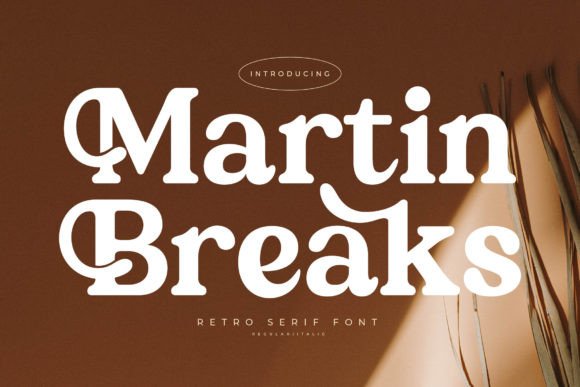
Martin Breaks Font: Elevate Your Design with Luxury Serif Elegance
In the realm of typography, fonts play a pivotal role in defining the aesthetic and tone of any design project. Among the myriad of fonts available, the Martin Breaks Font, also known as Martin Breaks – Retro Serif Font from Letterena, stands out as a beacon of luxury and sophistication. This comprehensive article aims to explore the nuances of the Martin Breaks Font, its versatility, and how it can be a game-changer for designers and brands aiming to make a statement.
The Essence of Martin Breaks Font
Martin Breaks Font is a luxury serif font that exudes elegance and refinement. Its retro serif characteristics lend it a classic appeal, making it an ideal choice for projects that demand a touch of sophistication and glamour. Whether it’s for logos, branding projects, homeware designs, product packaging, or any other luxury venture, Martin Breaks Font proves to be a versatile and valuable asset.
Key Features of Martin Breaks Font
- Luxury Serif Design: Offers a classic and sophisticated look, perfect for high-end projects.
- Retro Touch: The serif elements provide a nostalgic feel, making it stand out in the modern design landscape.
- Versatility: Suitable for a wide range of projects including logos, branding, packaging, posters, and more.
- Elegant Aesthetic: Adds a touch of elegance and refinement to any design.
Applications of Martin Breaks Font
The Martin Breaks Font is not just limited to one or two types of projects; its versatility allows it to be used across a broad spectrum of design needs. Here are some of the areas where this luxury serif font can make a significant impact:
- Logos and Branding Projects: Create a lasting impression with a logo that embodies luxury and class.
- Homeware Designs: Elevate home decor products with a sophisticated typographic style.
- Product Packaging: Stand out on store shelves with packaging that exudes elegance.
- Mugs, Quotes, Posters: Add a touch of luxury to everyday items and promotional materials.
- Shopping Bags, T-shirts, Book Covers: Enhance merchandise and publications with a stylish and upscale look.
- Name Cards, Invitation Cards, Greeting Cards: Make a statement with elegant and refined stationery.
- Labels, Photography, Watermarks: Bring a touch of sophistication to details that often go unnoticed but are essential for branding and protection.
- Special Events: Use Martin Breaks Font to create invitations, programs, and promotional materials for events that demand a high level of sophistication.
Why Choose Martin Breaks Font?
In a world where design trends are constantly evolving, the Martin Breaks Font offers a timeless appeal that can set your projects apart. Here are a few reasons why designers and brands are gravitating towards this luxury serif font:
- Timeless Elegance: Unlike trendy fonts that may become outdated, Martin Breaks Font offers a classic look that remains relevant.
- Versatility: Its adaptability across various design projects makes it a valuable asset for any designer or brand.
- High Readability: Ensures that your message is conveyed clearly and effectively, without compromising on style.
- Uniqueness: Stands out in a crowded market, helping brands and projects to leave a lasting impression.
How to Use Martin Breaks Font Effectively
To truly leverage the potential of the Martin Breaks Font, it’s essential to understand the basics of typography and design principles. Here are some tips on how to use this luxury serif font effectively:
- Pair with Simplicity: Let the font be the focal point by pairing it with simple backgrounds or design elements.
- Experiment with Sizes: Play with different font sizes to create a hierarchy that guides the viewer’s eye.
- Color Matters: Choose colors that complement the elegance of the font, often neutrals or pastels work well.
- Consistency is Key: Maintain font consistency across your project to build a cohesive brand image.
The Martin Breaks Font, with its luxury serif and retro elements, offers a unique blend of elegance and sophistication that can elevate any design project. Its versatility, timeless appeal, and adaptability make it an excellent choice for designers and brands looking to make a statement. Whether you’re working on a high-end branding project, a creative design venture, or simply looking to add a touch of luxury to your everyday items, the Martin Breaks Font is sure to deliver.
Incorporating the Martin Breaks Font into your design repertoire can open up new avenues for creativity and expression. With its broad range of applications and enduring style, it’s an investment that will continue to yield dividends for projects to come.